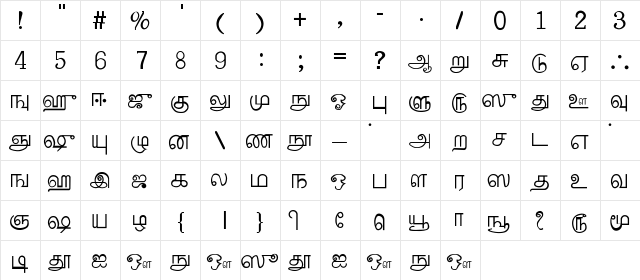
Palladam-Normal Regular Font Preview
Palladam-Normal Regular
Design Context for Palladam-Normal Typeface
Palladam-Normal offers clean, dependable letterforms without strong stylistic allegiance, making it a practical choice for designers who need flexibility.
Pro Tip: Use Palladam-Normal in both headline and body roles to test its range before committing to a single application.